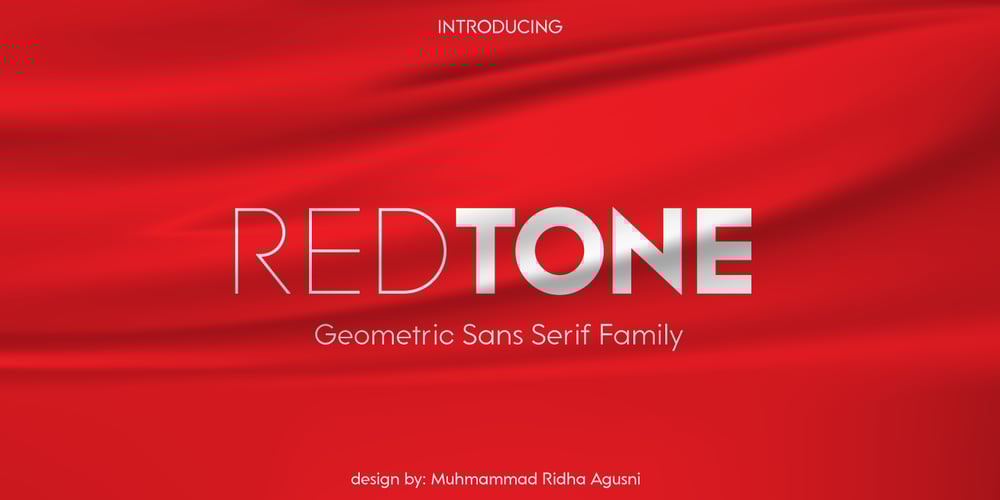
Redtone Font Family was designed by Muhammad Ridha Agusni and published by 38-lineart. Redtone contains 14 styles and family package options. Redtone is a Geometric Sans serif font family, a combination of straight lines and perfect circles and sharp edges. this geometric typeface is perfect for every display.This font has 14 fonts consisting of 7 weight from thin to bold with matching oblique.Redtone fonts have an extended character set to support Central and Eastern European as well as Western European languages.This font is a great choice for logo, packaging, greeting cards, presentations, headlines, lettering, posters, branding, quotes, titles, magazines, headings, web layouts, mobile applications, art quote, typography, advertising, invitations, packaging design, books, book title and more.